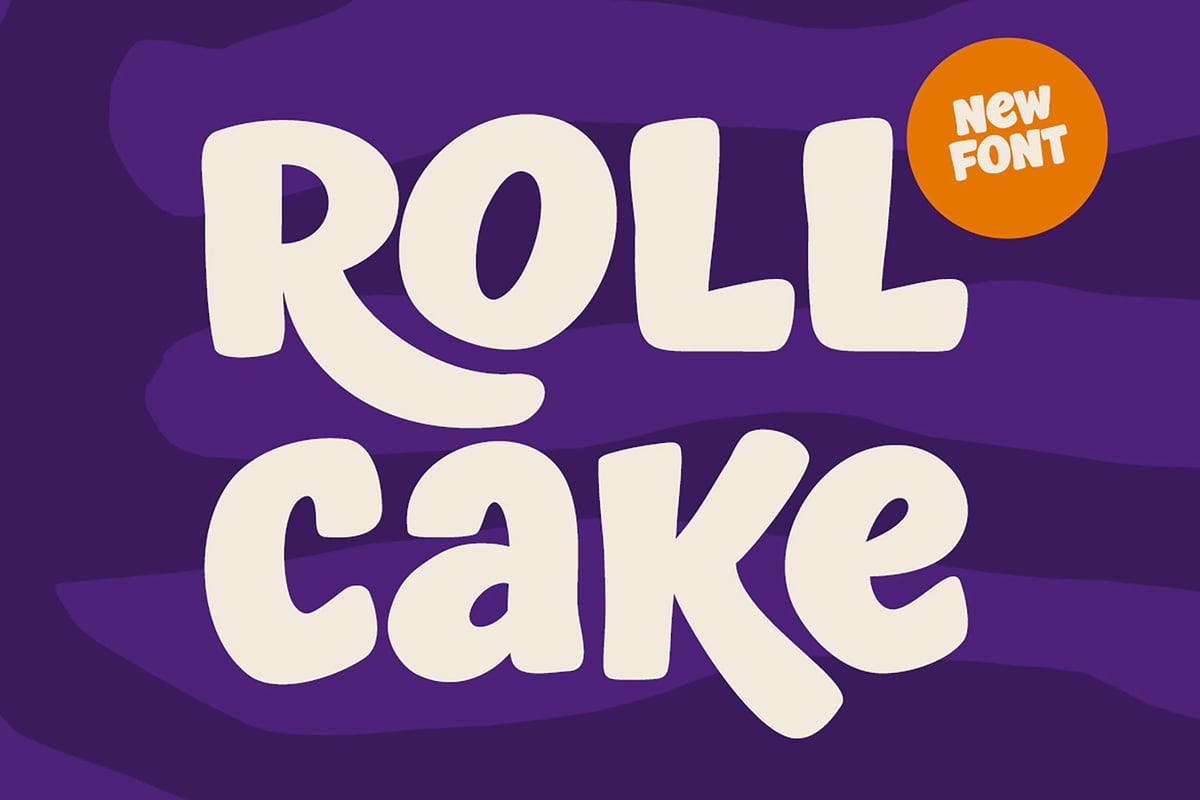
Roll Cake - Food Font
Bring delicious personality to your designs with Roll Cake, a playfully rounded display font that instantly grabs attention. This cheerful typeface draws inspiration from dessert branding and modern food packaging, featuring bold curves and soft shapes that create a fun, friendly character perfect for food-related projects. In Package: OTF TTF WOFF WOFF2 Perfect For: Bakery branding Dessert shop design Snack packaging Café menus Food packaging Kids product branding Restaurant promotions Social m...